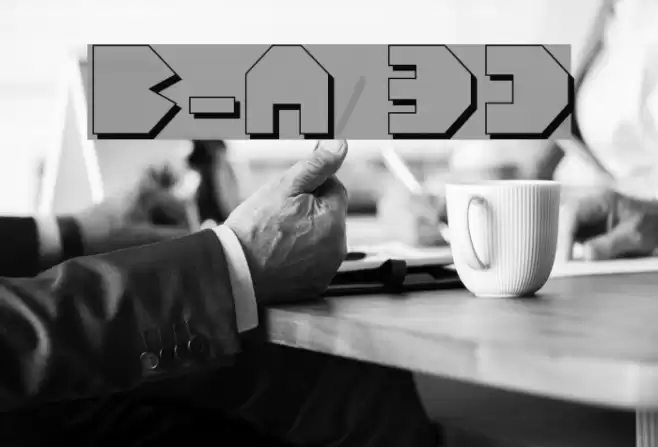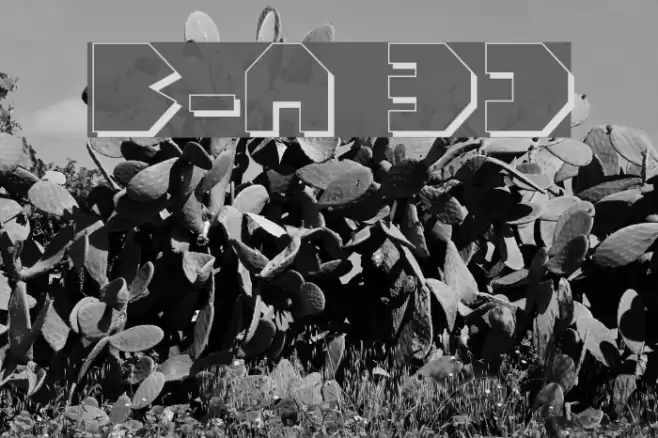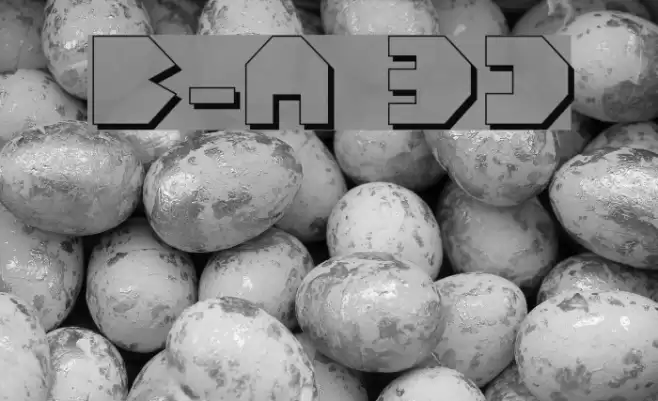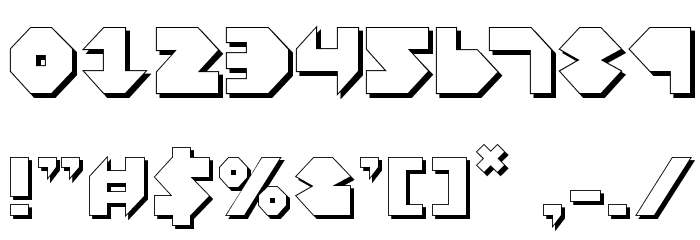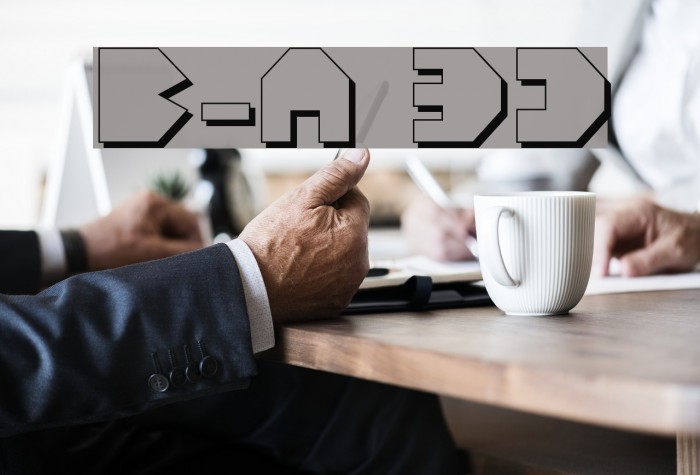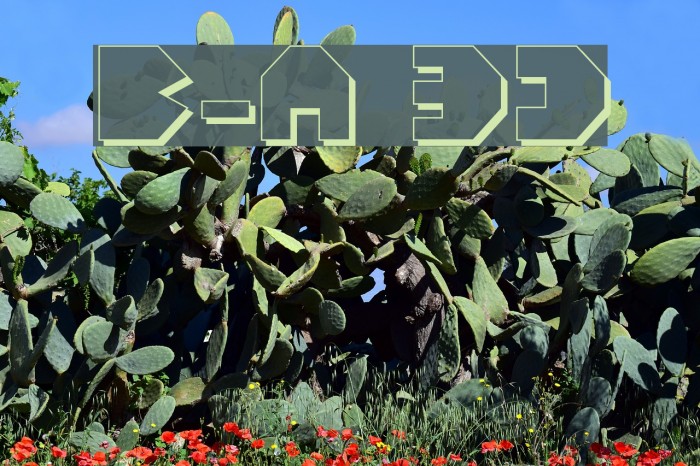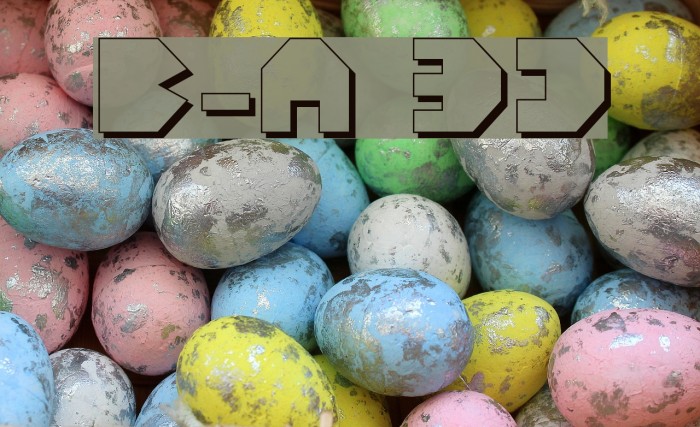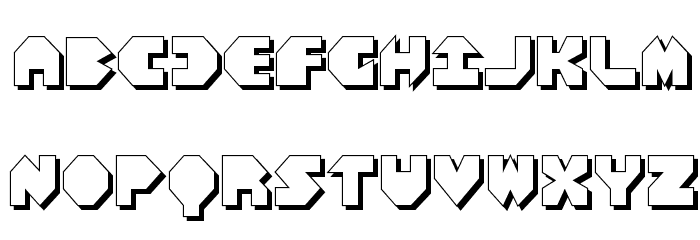
Bal-Astaral 3D Font
Bal-Astaral 3D Description
This font features a bold, three-dimensional design with a geometric and angular style. Each character is outlined, creating a shadow effect that gives the appearance of depth. The uppercase and lowercase letters maintain a consistent blocky structure, while the numerals and special characters follow the same aesthetic, ensuring uniformity across all glyphs. The font's unique 3D effect makes it stand out, making it ideal for attention-grabbing designs. The characters are evenly spaced, contributing to a balanced and cohesive look.
A bold, geometric 3D font with a striking outline and shadow effect from Futuristic fonts.
- Proposed Projects: Ideal for poster designs, video game titles, futuristic themes, and branding that requires a bold statement.